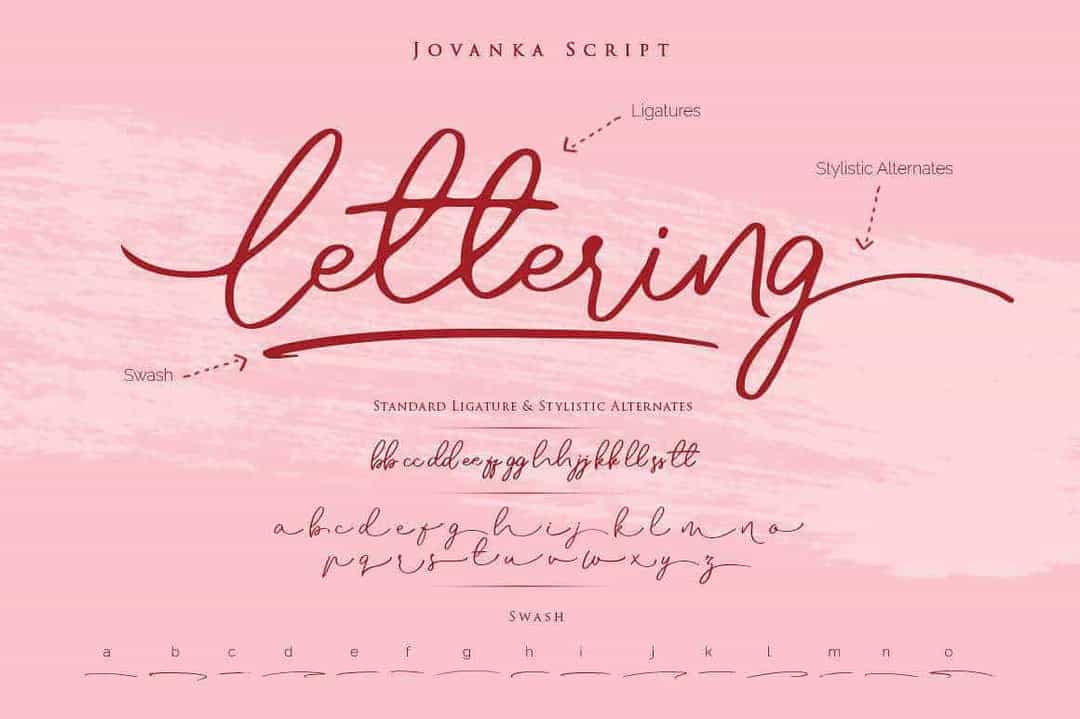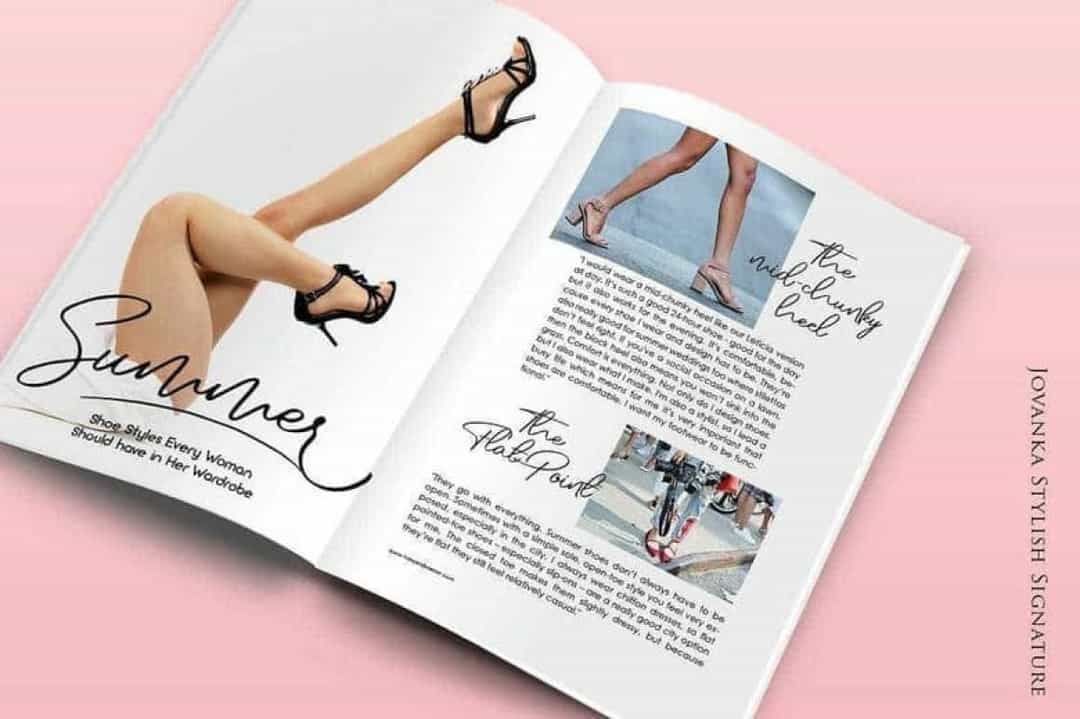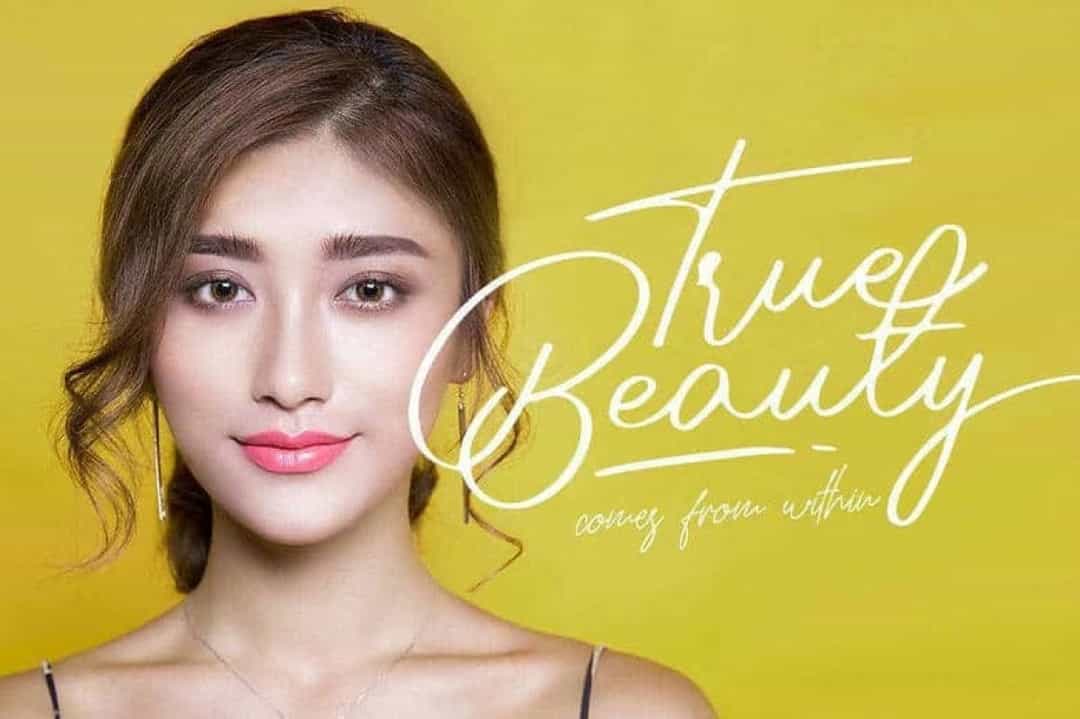
Discover Jovanka Script Font, part of the Calligraphy Handwritten collection—a versatile and unique font perfect for adding a personal touch to your projects. Download it for free and enjoy crafting designs with style, from invitations to social media posts. This font is available exclusively for personal use, giving you the freedom to create without limits. Unlock your creativity with Jovanka Script Font today!
Jovanka is a modern font created to suit all design needs, carefully crafted to get the letter style in every word to be written, so it will be great for use in different projects: photo, logo, signature, slogan, quotation, blog, advertisement, poster, marriage, identity, clothing, alphabet, card, etc